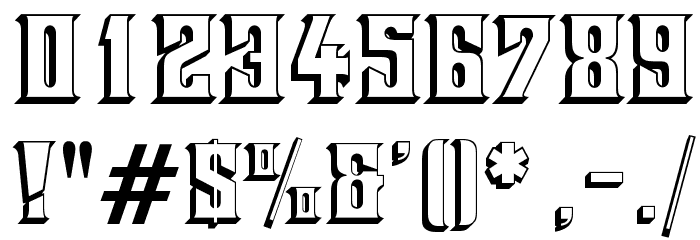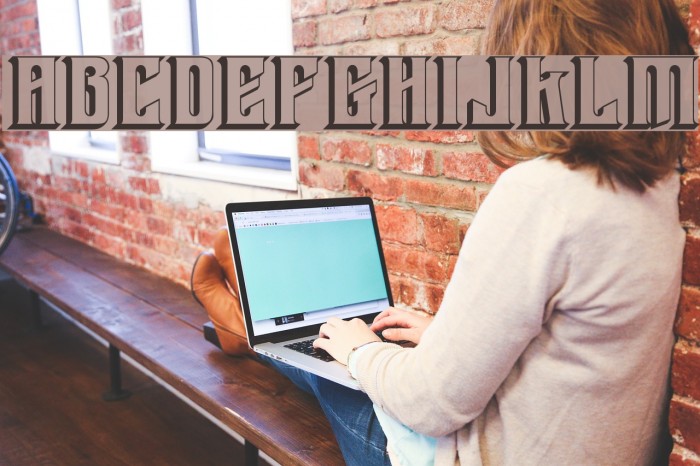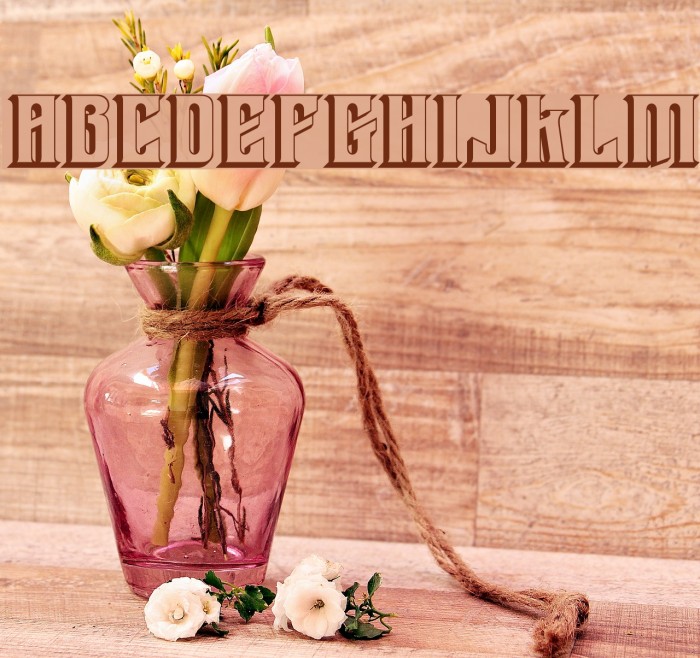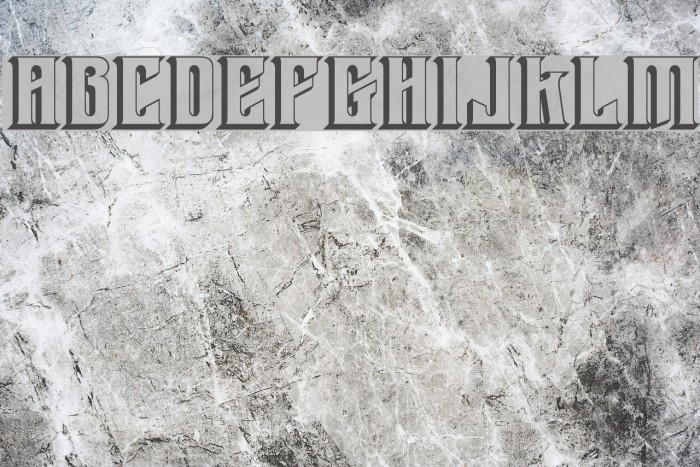
OPTIHockey Font
This font features a bold and striking design, characterized by its strong geometric shapes and sharp angles. The letters are outlined with a thick black border, giving them a three-dimensional appearance. The interior of each character is filled with a solid color, enhancing the boldness and visibility. The font has a distinct, sporty aesthetic, reminiscent of team jerseys or athletic branding. Its uppercase letters are particularly prominent, making it ideal for headlines or titles that need to capture attention. The numbers and special characters maintain the same bold style, ensuring consistency across all text elements.
A bold, geometric font with a sporty, three-dimensional look.
- Proposed Projects: Ideal for sports team branding, event posters, and merchandise designs.
- Overall Style: Sporty, Modern